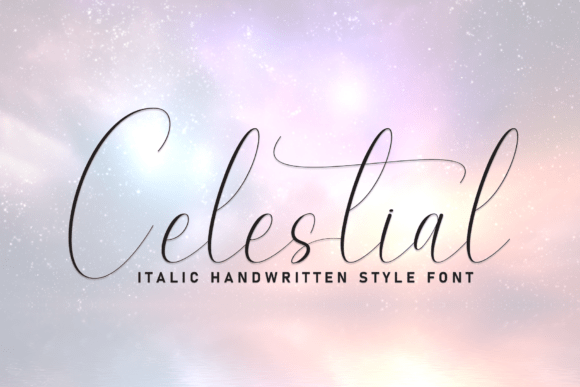
Celestial Font: Elevate Your Designs with Elegance and Charm
In the world of typography, few fonts manage to capture the essence of elegance and charm as effortlessly as Celestial. This stylish handwritten script font is a masterpiece of modern design, exuding a fresh and delicate allure that instantly elevates any project. With its flowing strokes and graceful curves, Celestial evokes a sense of renewal, making it the perfect choice for a variety of design applications, from invitations and branding to seasonal designs and more.
The Essence of Celestial Font
At its core, Celestial is a font that embodies the beauty of handwritten script. Its elegant and refined appearance is characterized by intricate details and a soft, personal touch that sets it apart from more conventional typefaces. The font’s design is inspired by the fluidity and dynamism of handwriting, with each letter carefully crafted to convey a sense of movement and energy.
One of the standout features of Celestial is its ability to add a touch of sophistication and glamour to any design. Whether you’re working on a wedding invitation, a branding campaign, or a seasonal greeting card, this font is sure to make a lasting impression. Its versatility and adaptability make it an excellent choice for designers looking to create unique and eye-catching visuals.
Design Characteristics of Celestial
So, what makes Celestial such a standout font? Here are a few key design characteristics that contribute to its unique charm:
- Flowing Strokes: Celestial’s strokes are characterized by a smooth, flowing quality that gives the font its signature elegance.
- Graceful Curves: The font’s curves are carefully crafted to create a sense of movement and fluidity, adding to its overall sense of dynamism.
- Delicate Charm: Celestial’s design is infused with a delicate charm that makes it perfect for projects where a touch of whimsy and personality is desired.
- Soft, Personal Touch: The font’s soft, personal touch makes it ideal for designs where a human, handwritten feel is desired.
Uses for Celestial Font
So, what can you use Celestial for? The possibilities are endless, but here are a few ideas to get you started:
- Invitations: Celestial is perfect for wedding invitations, baby shower invitations, and other special occasion invites.
- Branding: The font’s elegant and refined appearance makes it an excellent choice for branding campaigns, particularly for businesses in the luxury or lifestyle sectors.
- Seasonal Designs: Celestial’s fresh and delicate charm makes it ideal for seasonal designs, such as Christmas cards, Easter greetings, and more.
- Packaging: The font’s versatility and adaptability make it a great choice for packaging design, particularly for products that require a touch of elegance and sophistication.
Why Choose Celestial Font?
With so many fonts to choose from, why should you choose Celestial? Here are a few compelling reasons:
- Unique and Eye-Catching: Celestial’s distinctive design makes it a standout font that is sure to grab attention.
- Versatile and Adaptable: The font’s versatility and adaptability make it suitable for a wide range of design applications.
- Elegant and Refined: Celestial’s elegant and refined appearance makes it perfect for designs that require a touch of sophistication and glamour.
- Easy to Read: Despite its intricate details, Celestial is surprisingly easy to read, making it a great choice for body text and other longer-form content.
Tips for Using Celestial Font
To get the most out of Celestial, here are a few tips to keep in mind:
- Use it Sparingly: While Celestial is a beautiful font, it can be overwhelming if used excessively. Use it sparingly to create a sense of drama and impact.
- Pair it with Other Fonts: Celestial pairs well with a variety of other fonts, including sans-serif and serif typefaces. Experiment with different combinations to find the one that works best for your project.
- Experiment with Colors: Celestial looks great in a variety of colors, from soft pastels to rich jewel tones. Experiment with different colors to find the one that works best for your design.
In conclusion, Celestial is a truly exceptional font that is sure to elevate any design. With its elegant and refined appearance, flowing strokes, and delicate charm, it’s the perfect choice for a wide range of design applications. Whether you’re working on an invitation, a branding campaign, or a seasonal design, Celestial is sure to make a lasting impression. So why wait? Give Celestial a try today and see the difference it can make in your designs!